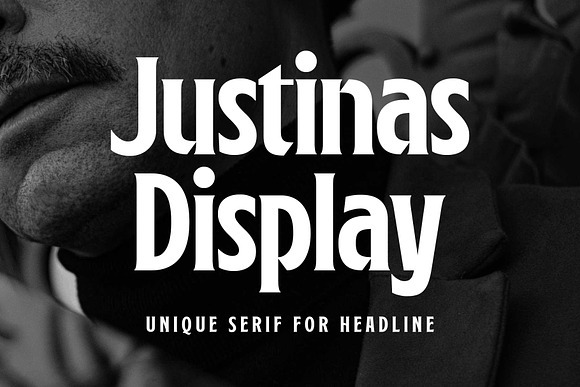
Justinas Display Font
About Justinas Display
Justinas is a bold display serif, perfect for headlines. With its condensed design and sharp edges, it brings elegance and strength to your designs.
Justinas combines blackletter style with vintage charm, giving it a classy look suitable for various purposes. It’s equipped with stylistic alternates to mix and match, adding extra flair to make your designs stand out!